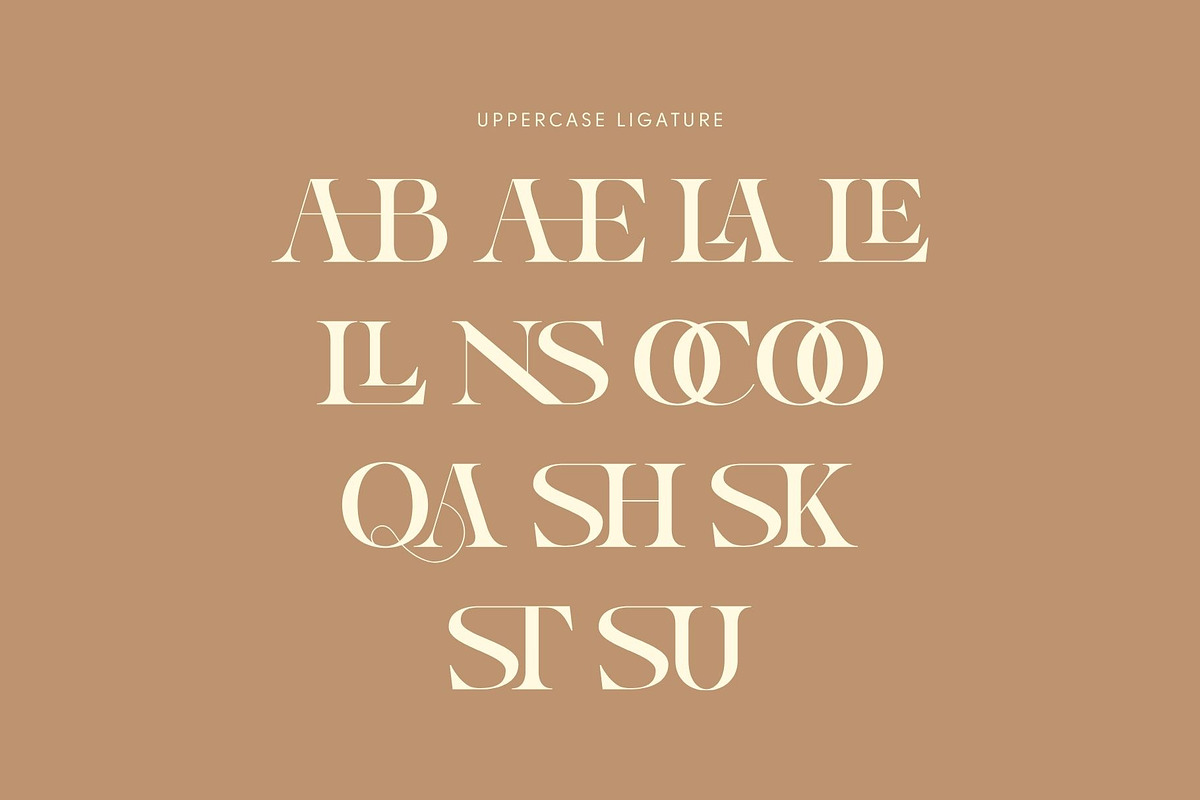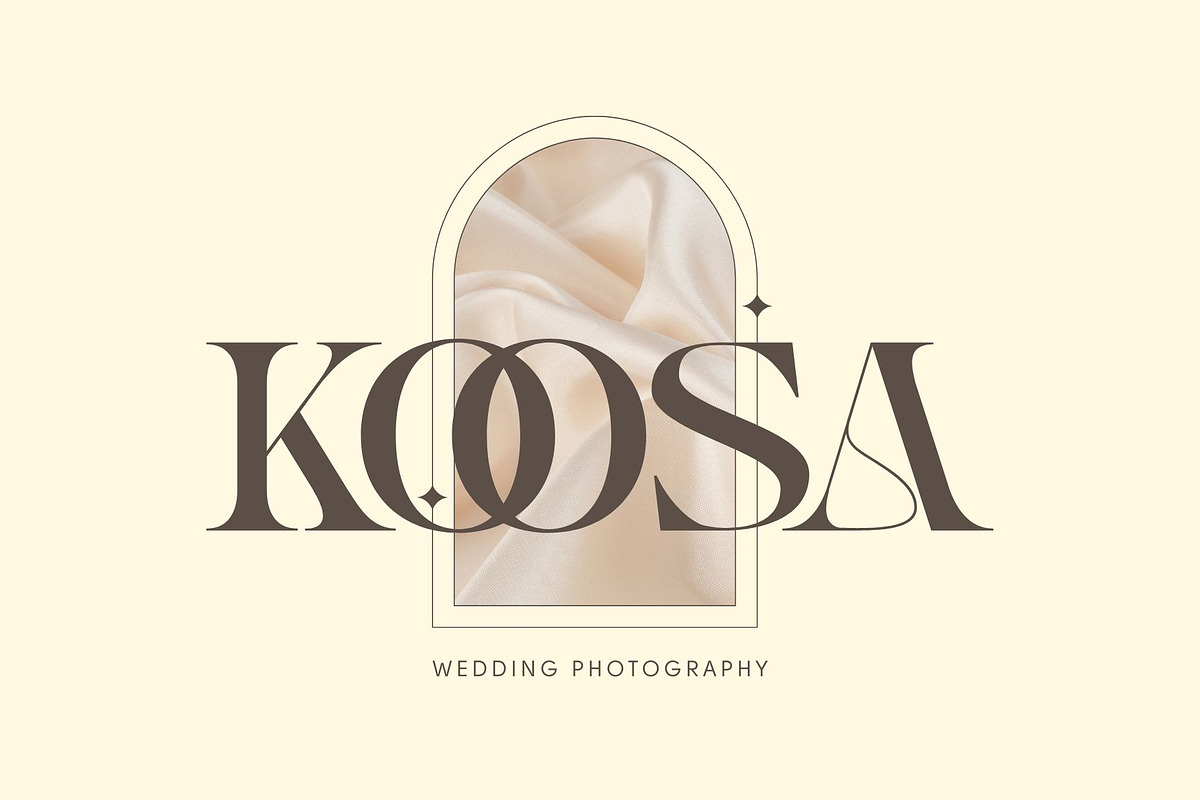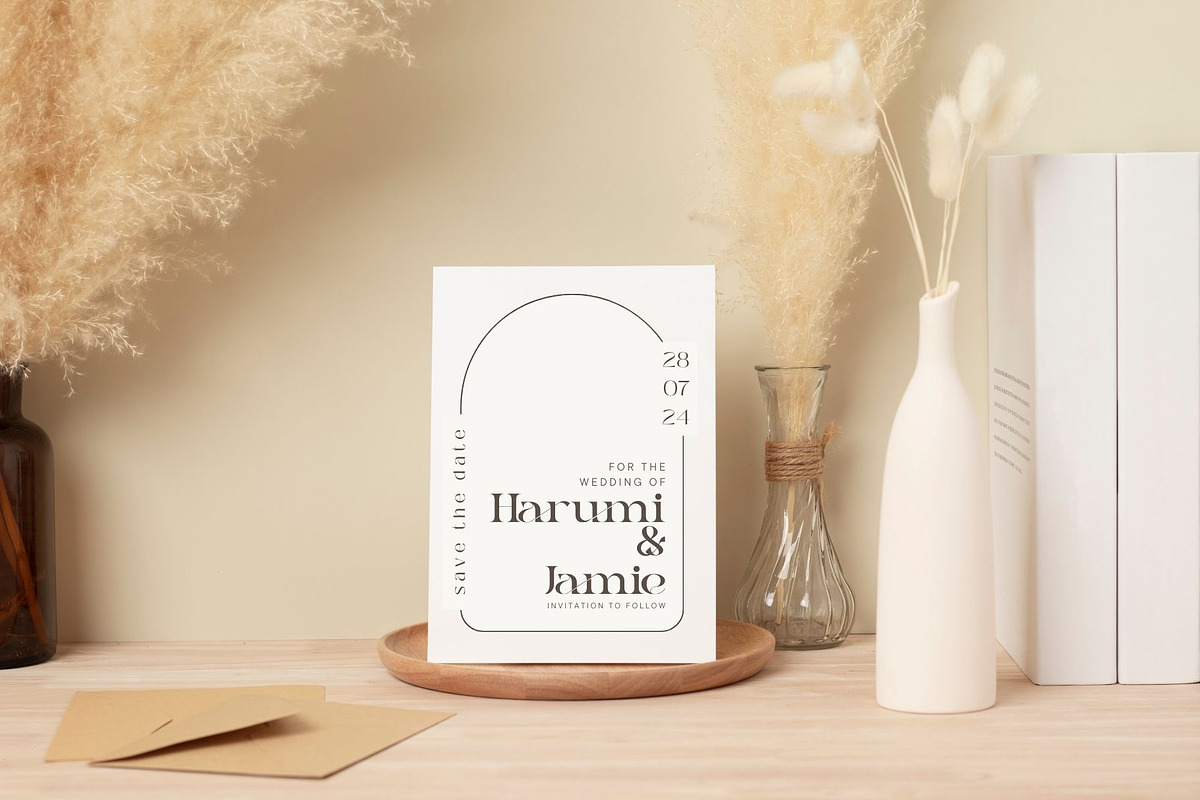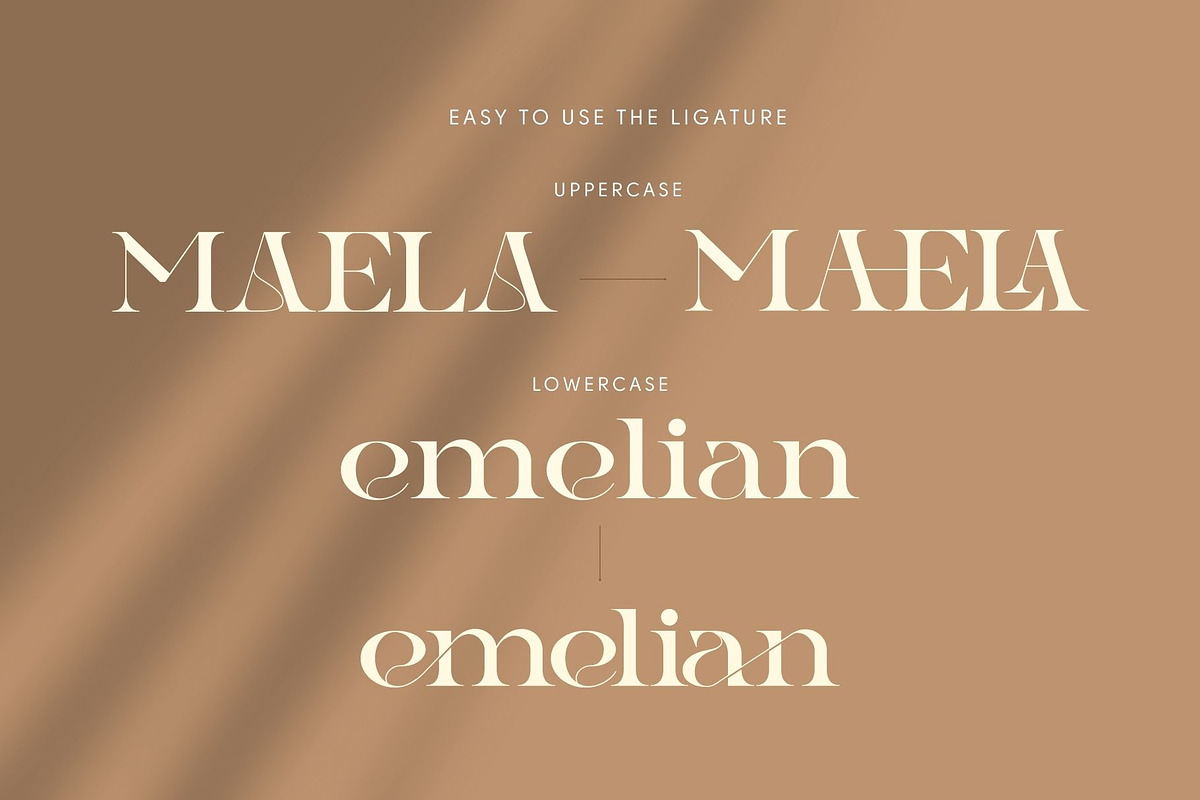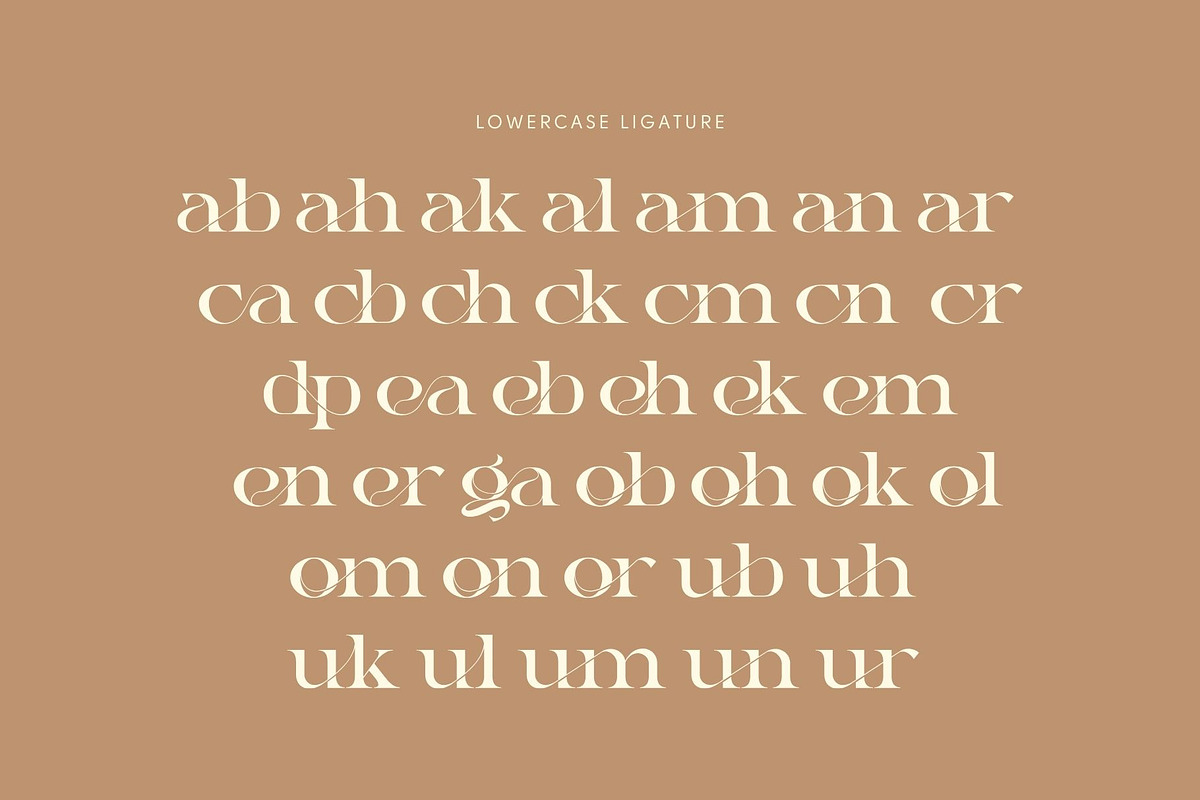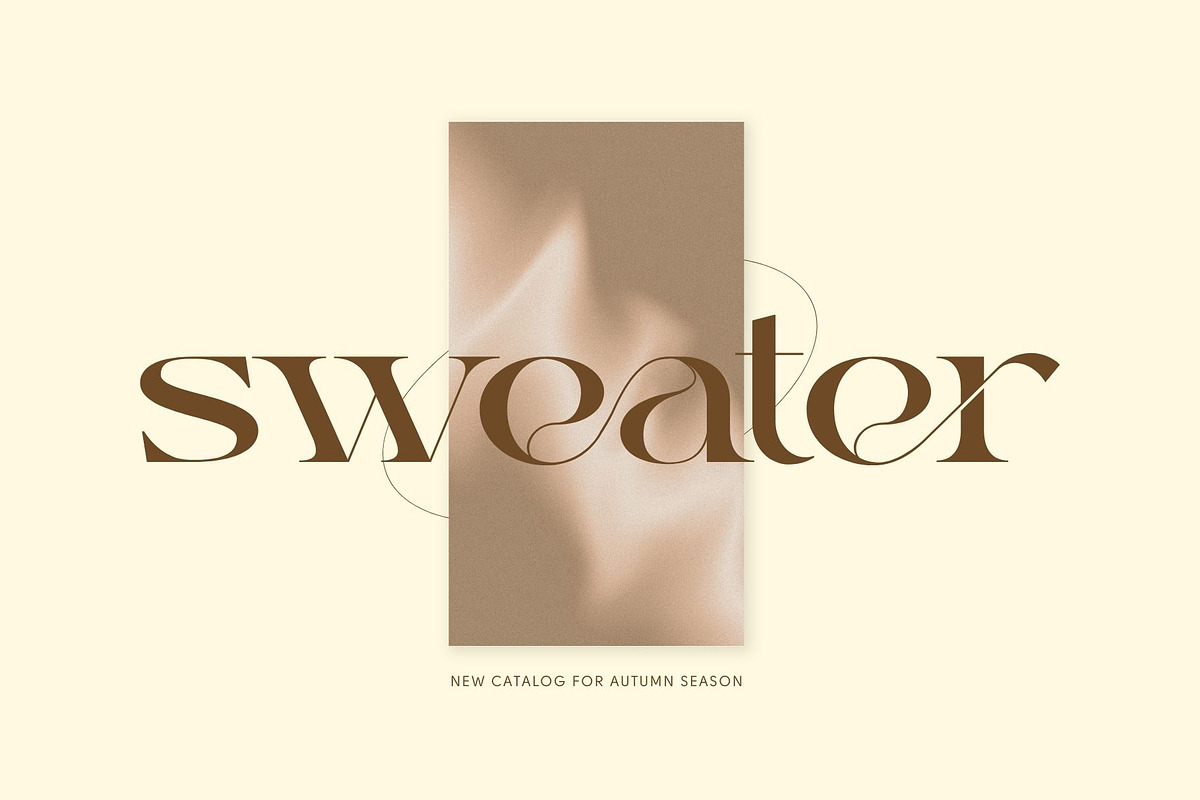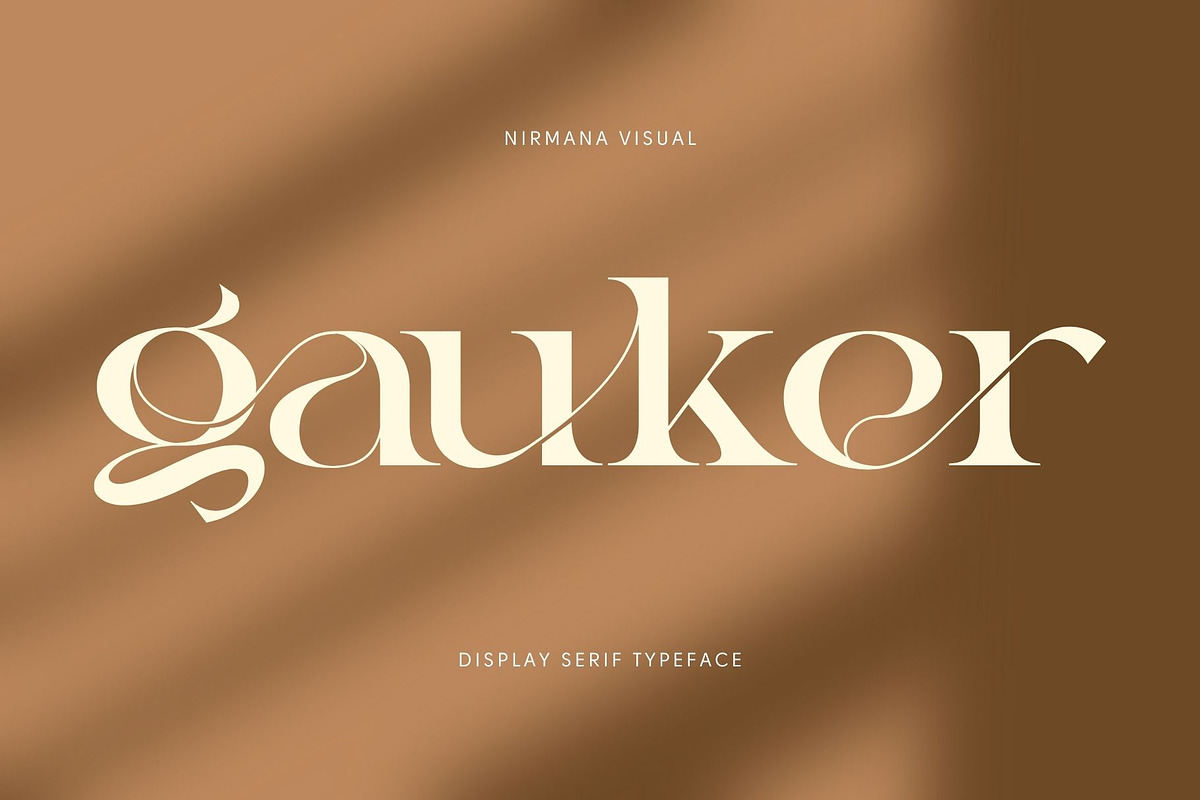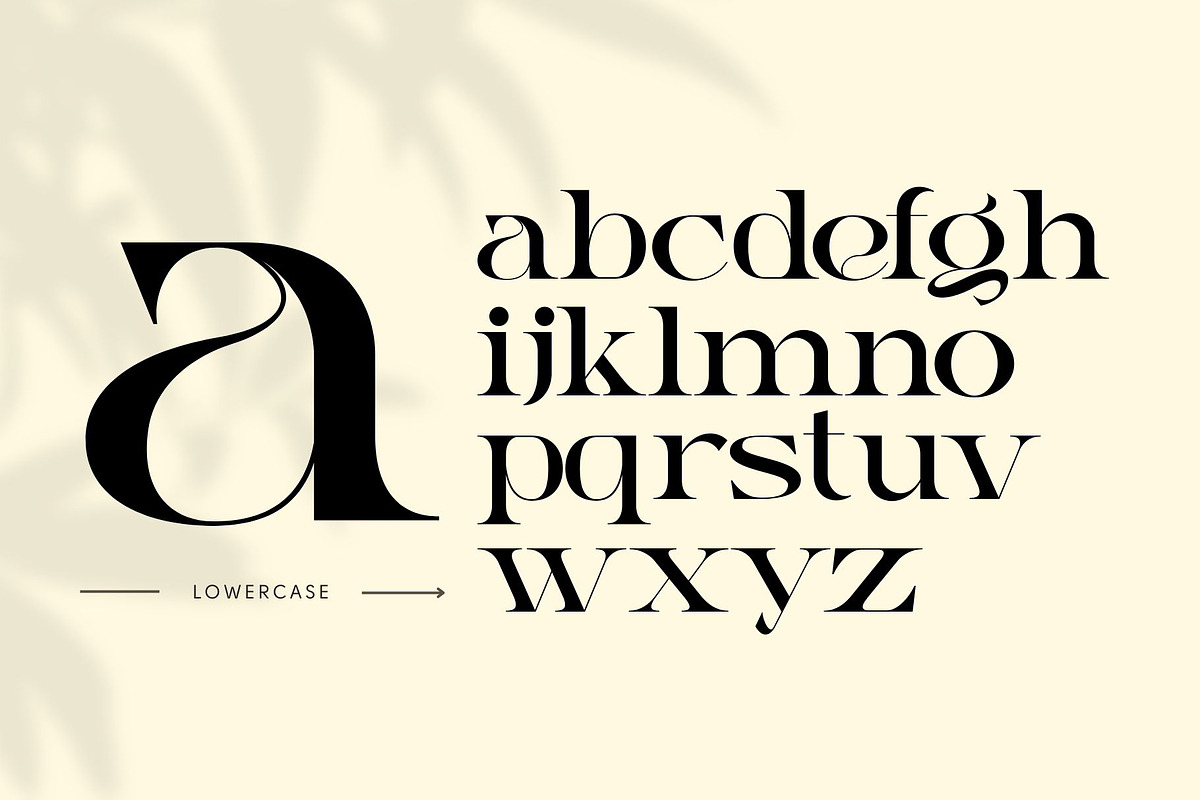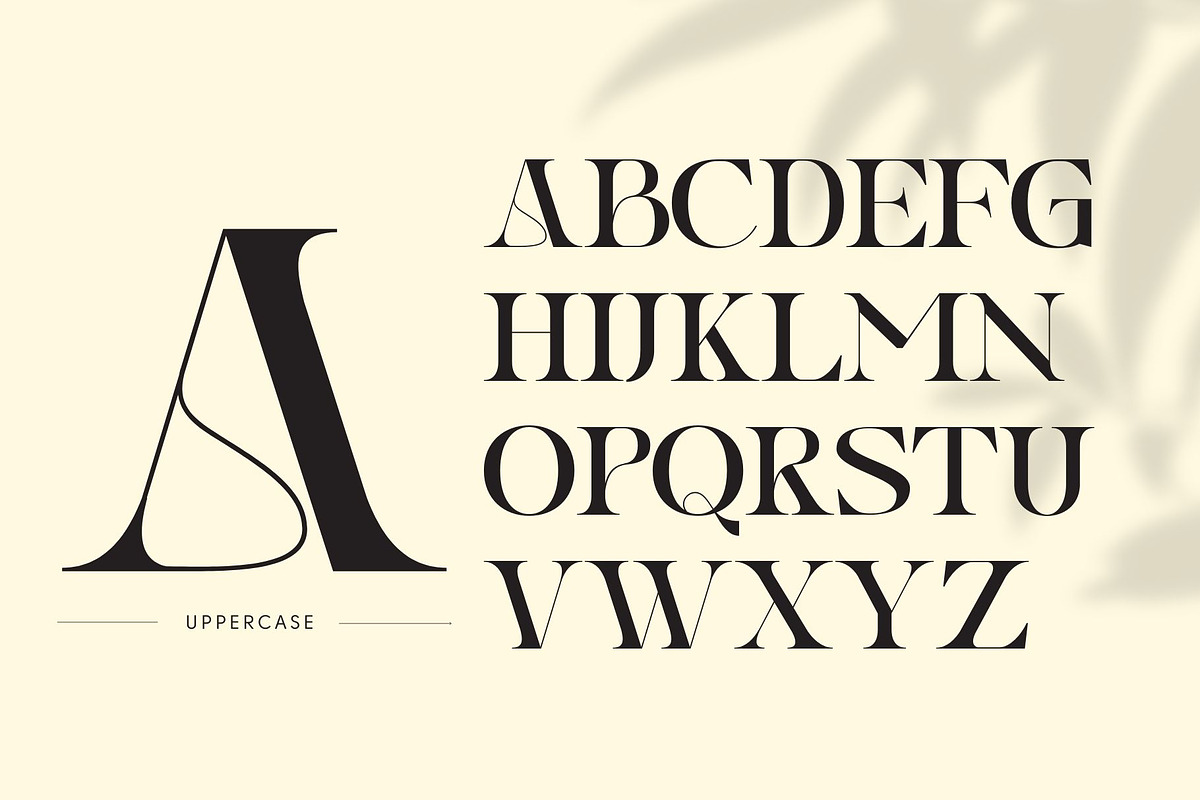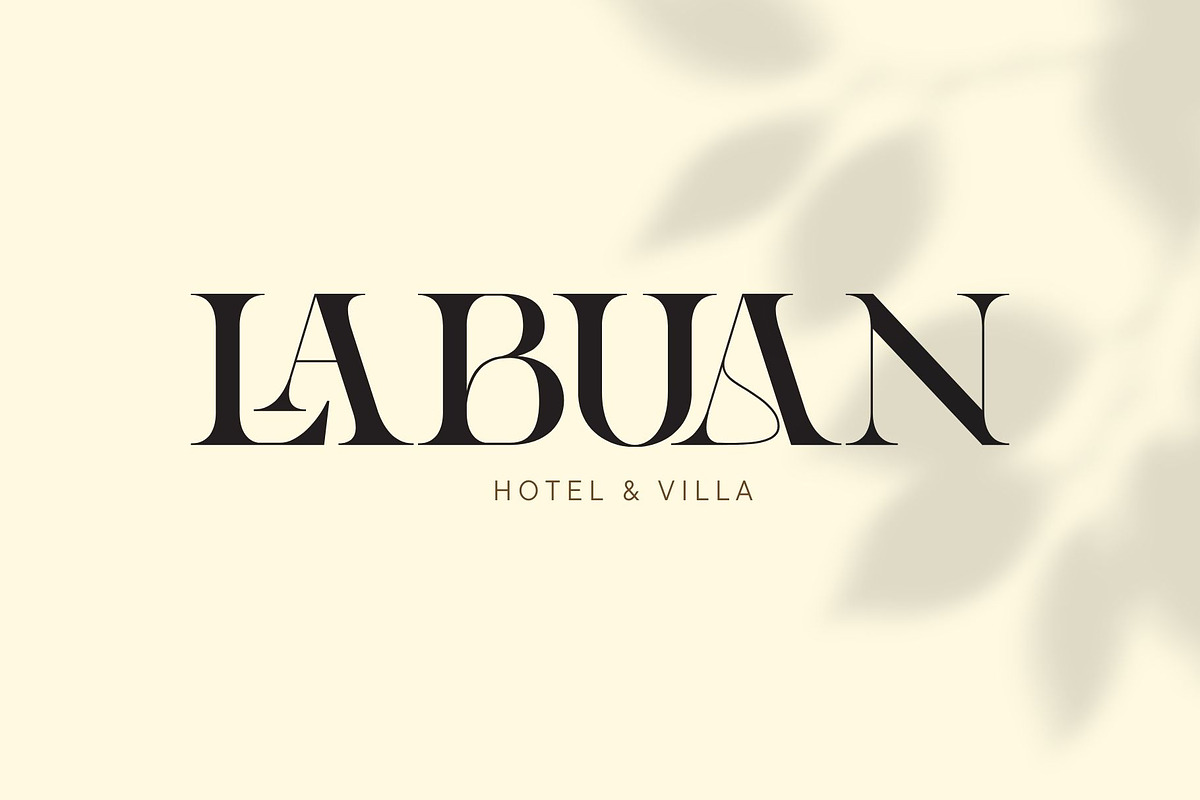
Gauker - Modern Ligatures Serif
Gauker - Ligatures Serif Font
Gauker - Serif Font offers beautiful typographic harmony for a diversity of design projects, including logos & branding, social media posts, advertisements & product designs.